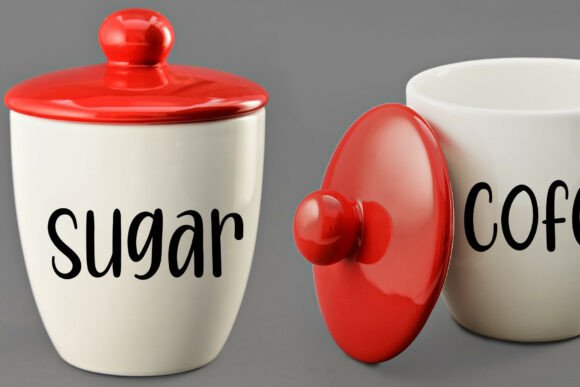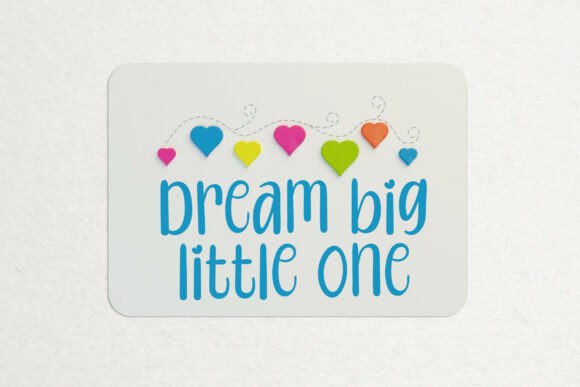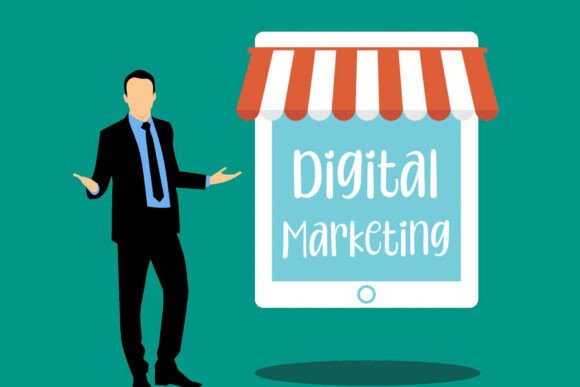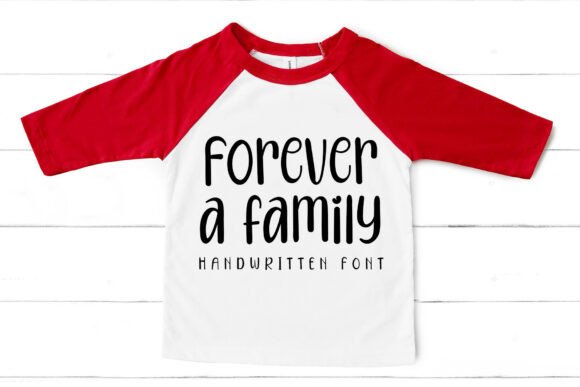
Introduction to Smart Family Font
Smart Family – Clean & Friendly Sans Font Meet Smart Family, a soft, friendly, and highly legible handwritten sans-serif font designed for everyday creativity.
Striking the perfect balance between neatness and approachable warmth, it features uniform line weights, rounded terminal endings, and an elongated structure A subtle, sweet heart element replaces the traditional dot on the ‘i’, adding just the right amount of playful personality.
Smart Family Font offers exceptional quality and versatility, making it a valuable addition to your design toolkit. Whether you’re creating for personal projects or commercial use, Smart Family Font delivers professional results.